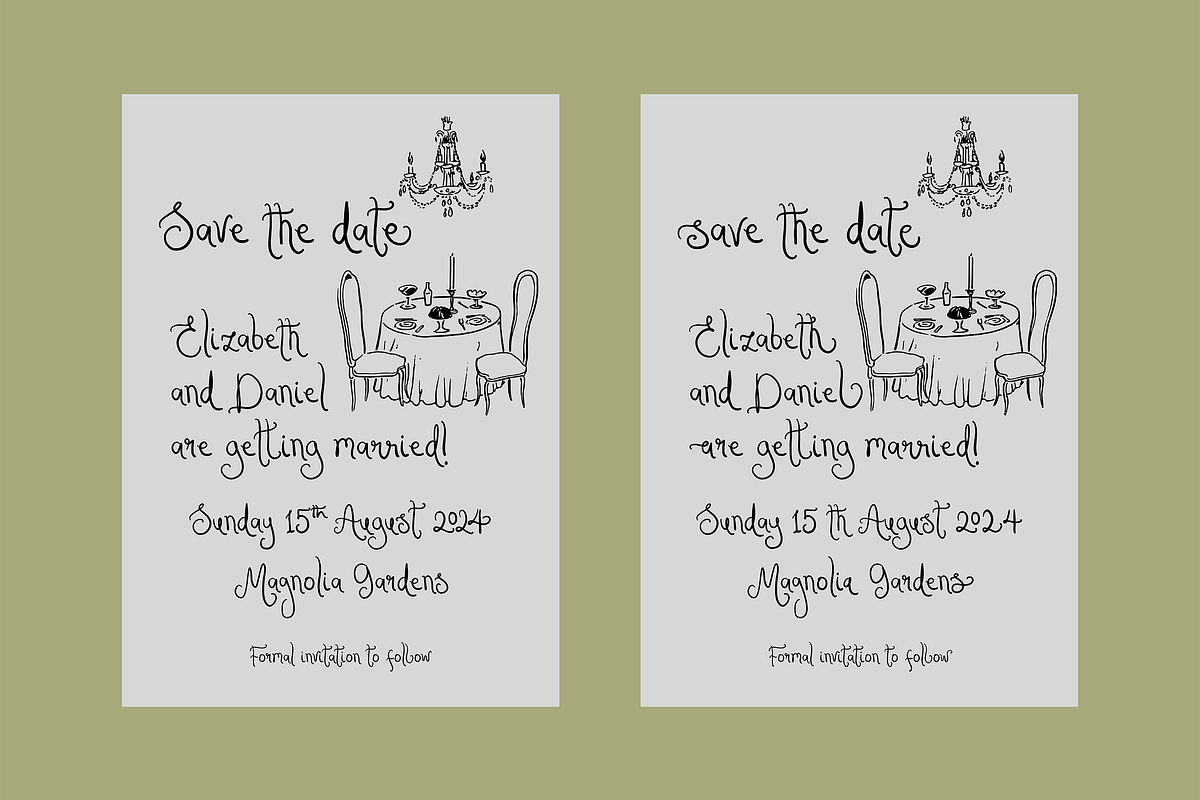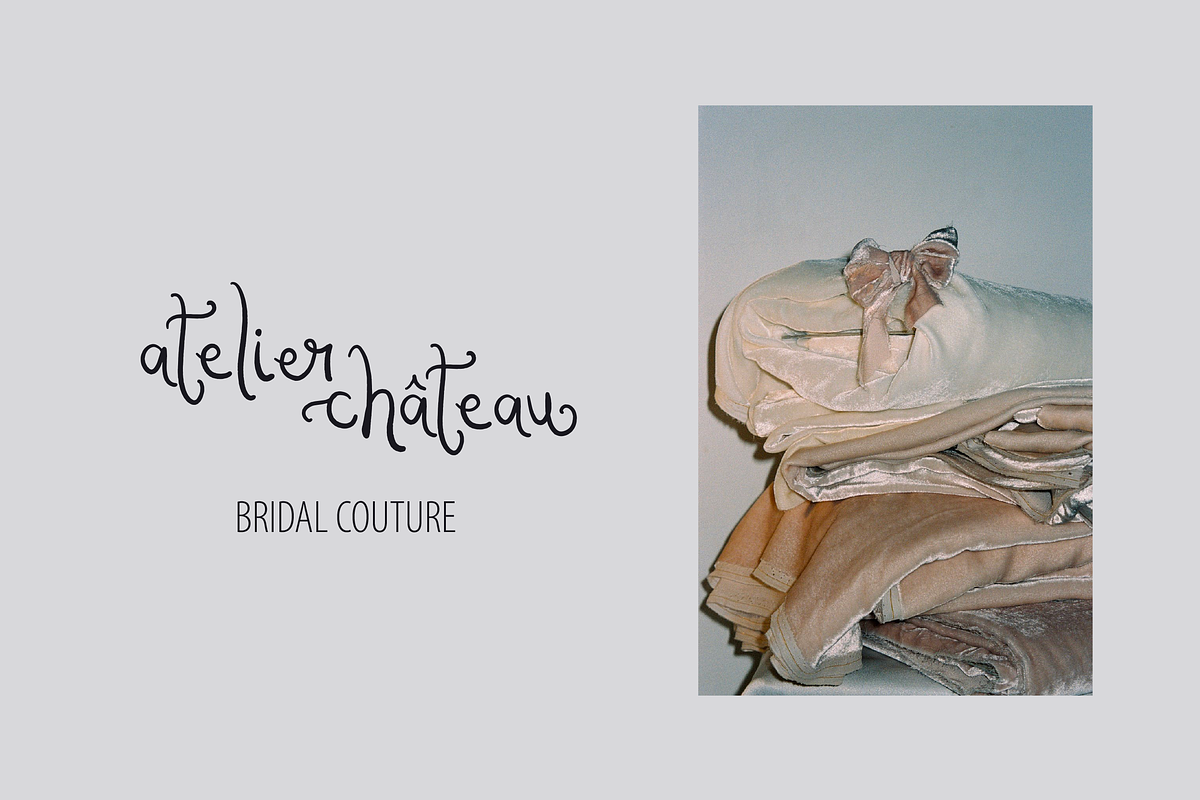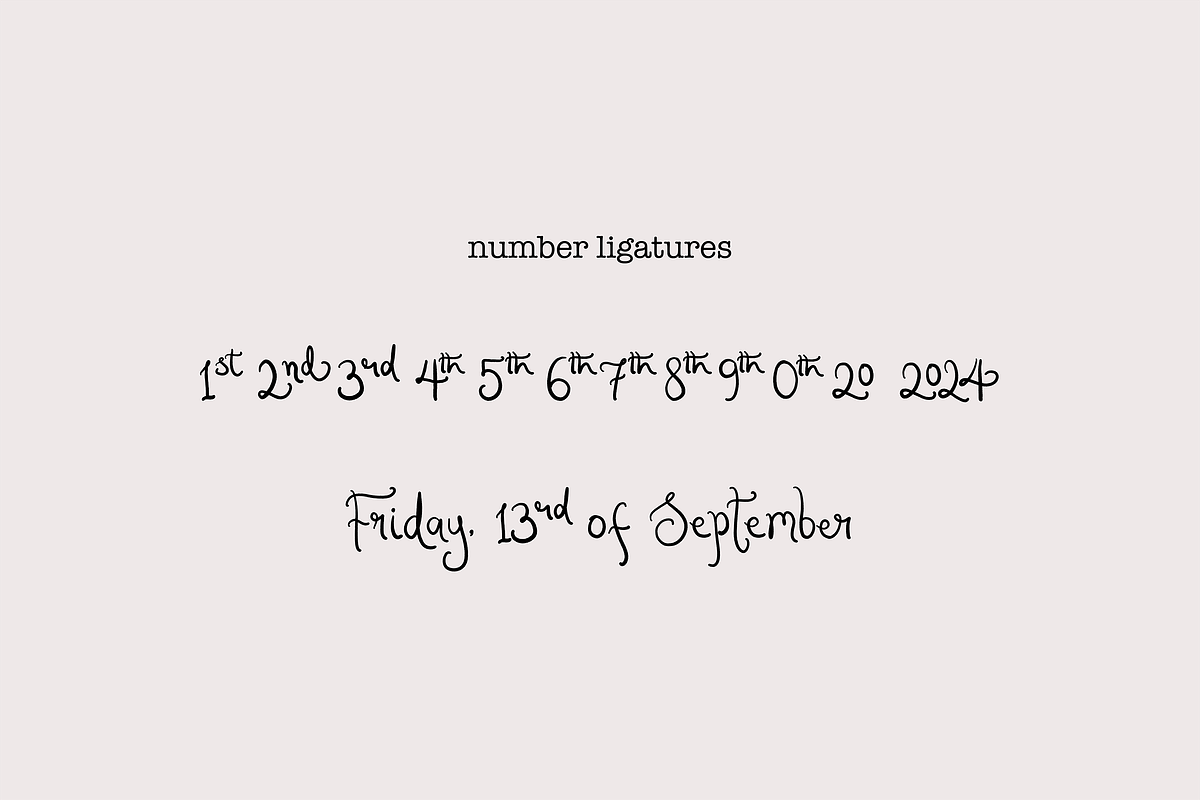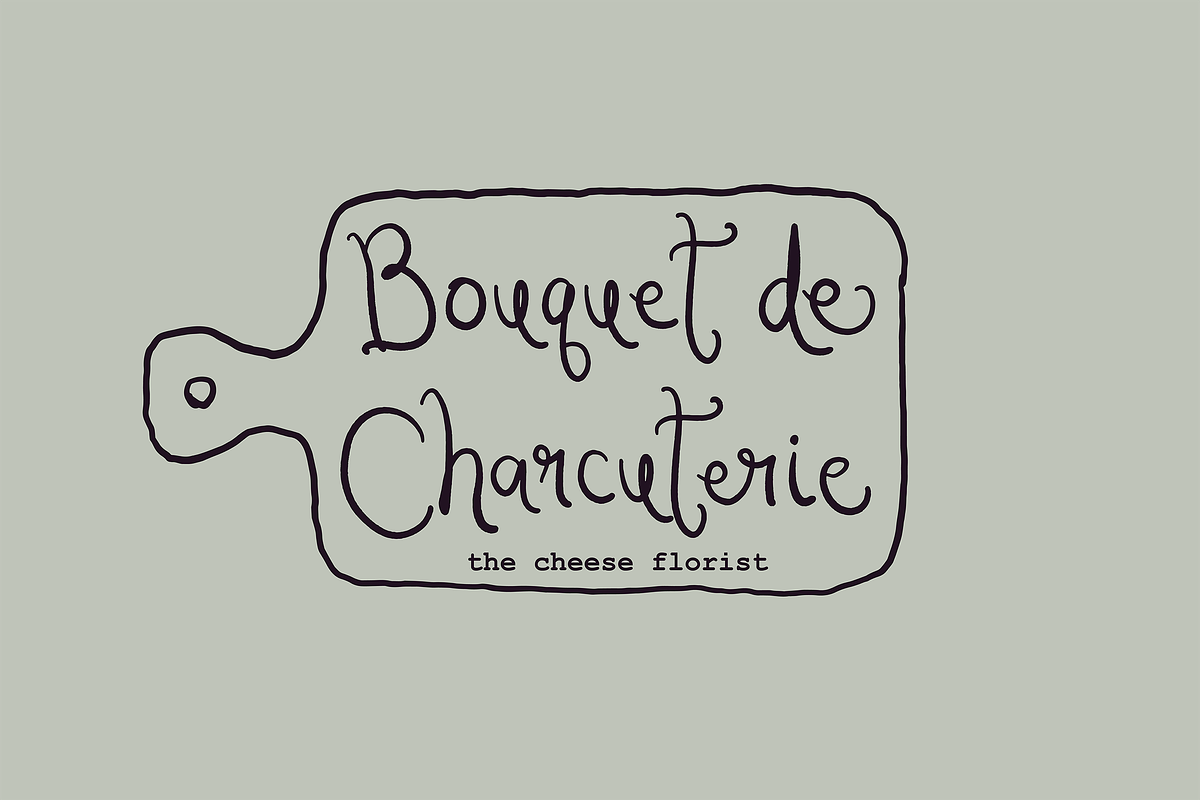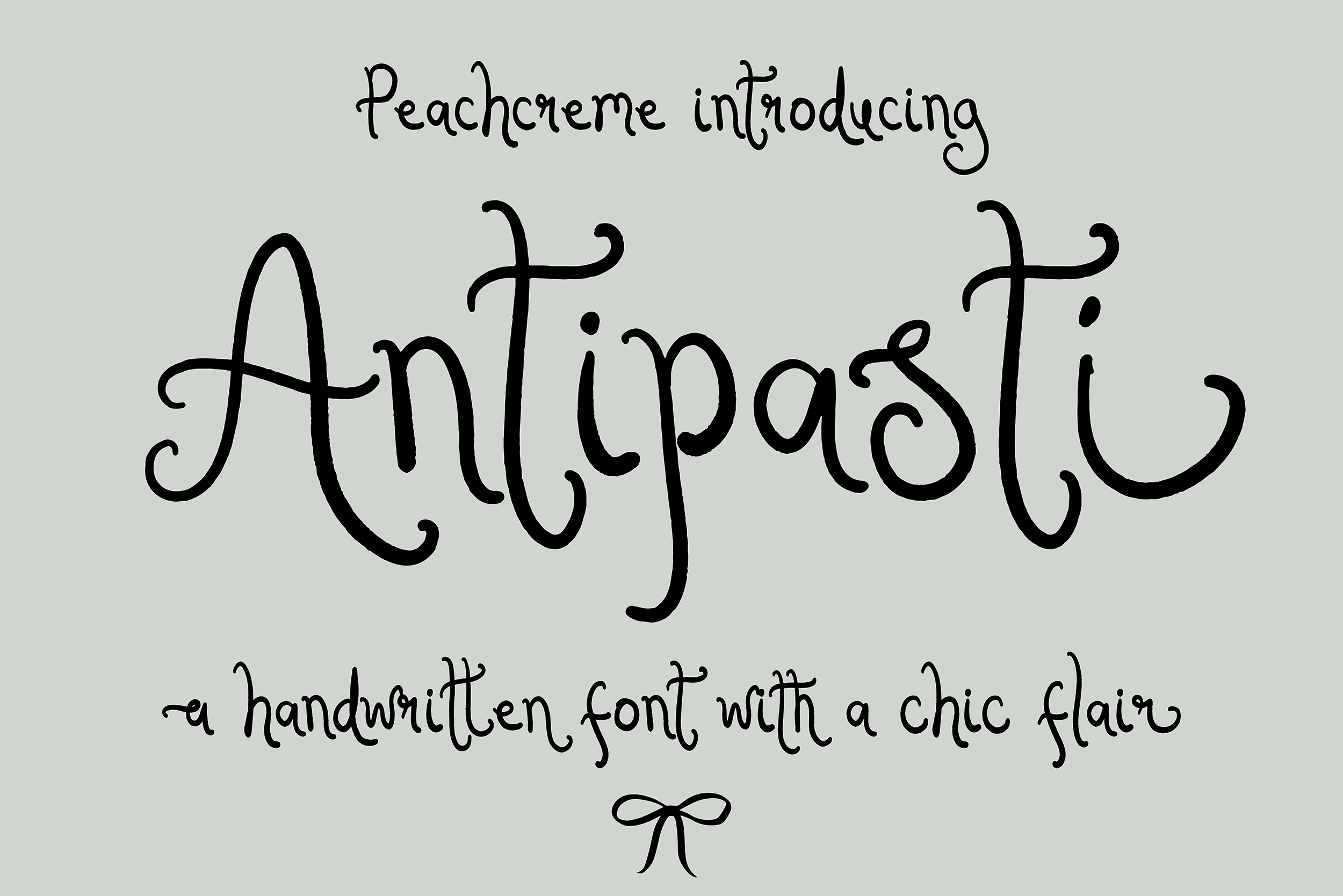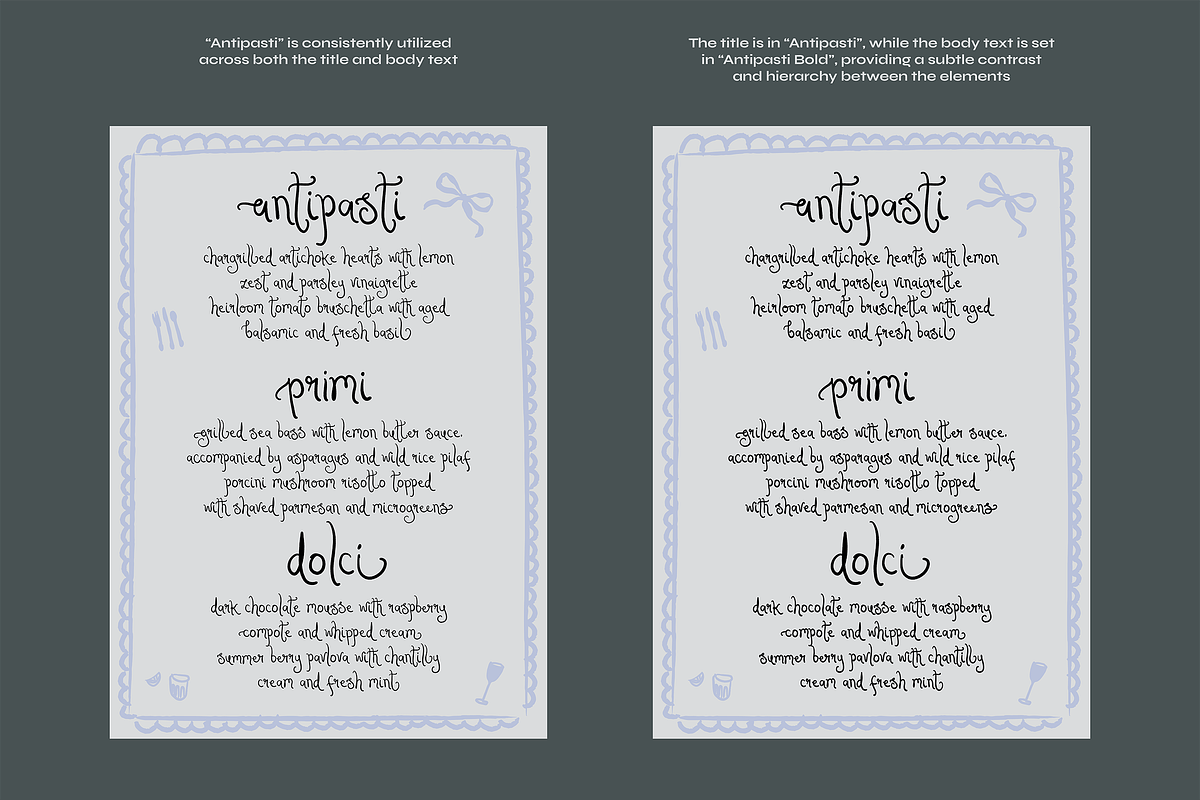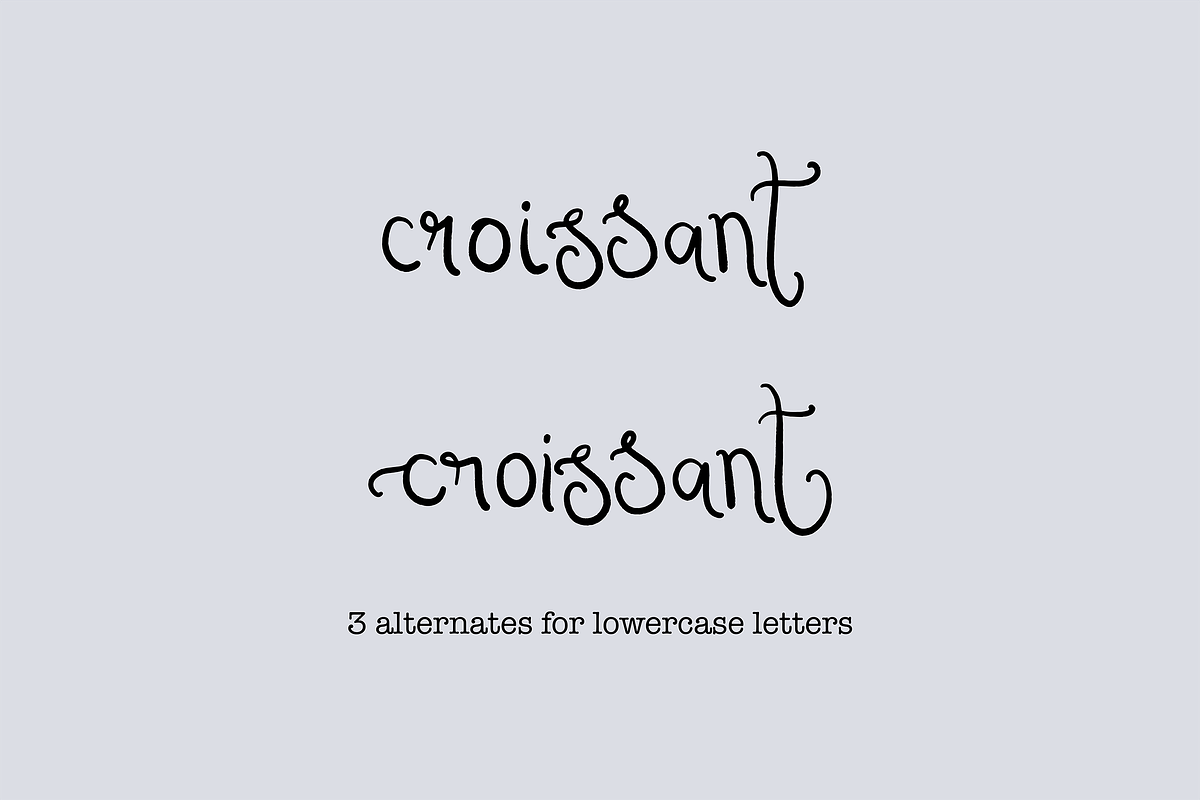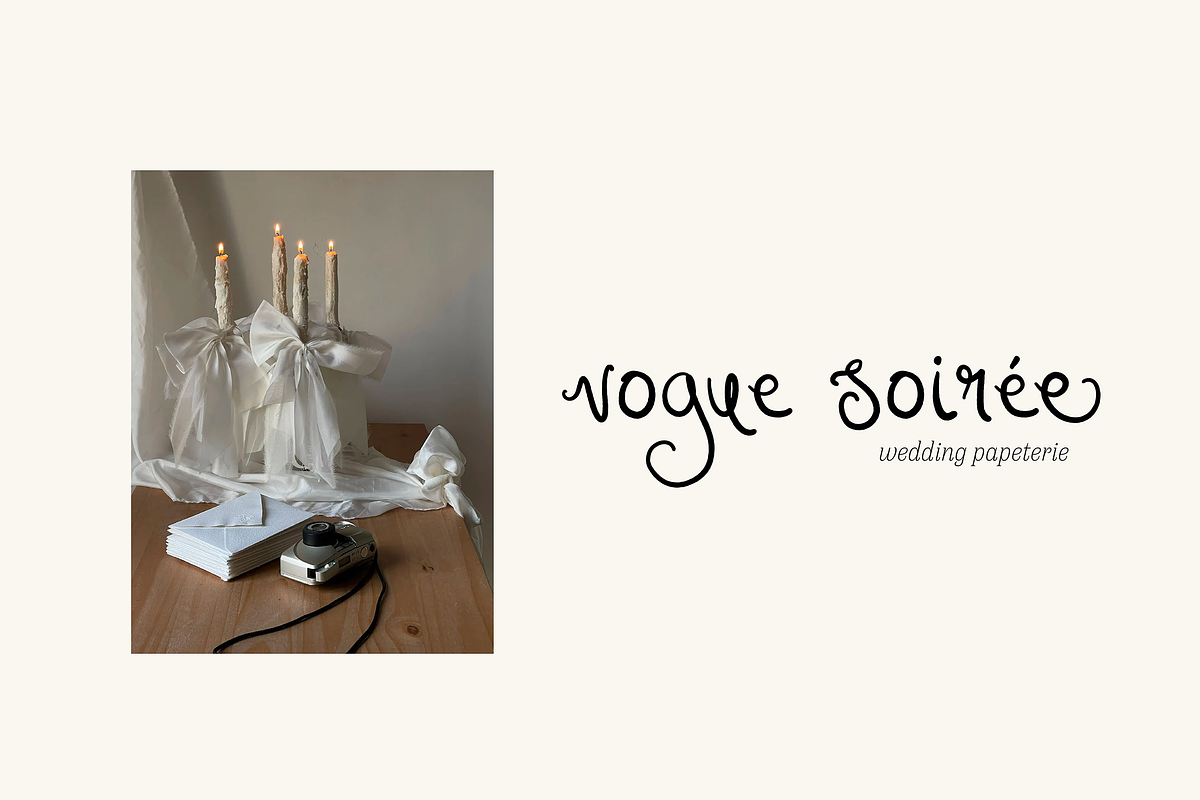
Antipasti // Quirky Script Font
Introducing "Antipasti," a typeface that blends the charm of handwritten script with the clarity of modern design. Available in two distinct weights, "Antipasti" offers versatility for various applications, from the delicate touch on wedding stationery to the robust presence on branding materials.
Each lowercase character in "Antipasti" is accompanied by a trio of stylistic alternates: a beginning swash, an ending swash, and a standalone alternate for those moments that call for something a little different.